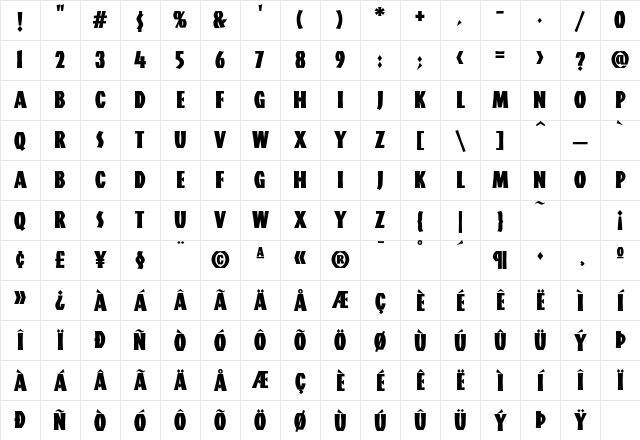
Aardvark FB Bold
Foundry: The Font Bureau Inc
Design Context for Aardvark FB
Aardvark FB is a composed and adaptable typeface that performs quietly and consistently across a wide range of design contexts. Its bold stroke weight gives it real presence on the page.
Who designed the Aardvark FB Bold font?